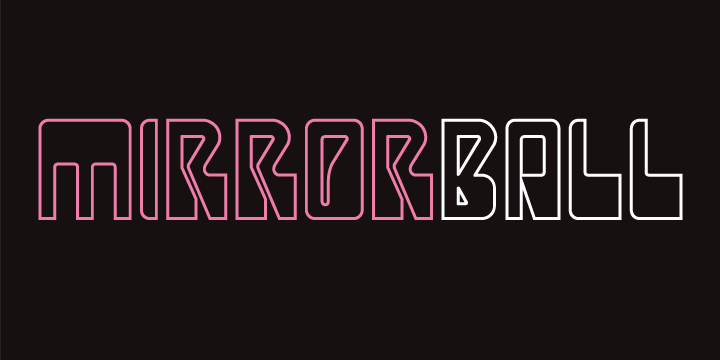
The LaserDisco Font is a dazzling and electrifying display typeface, characterized by its futuristic glow, segmented or neon-inspired forms, and an undeniable sense of 70s disco glam meets digital age. Imagine its vibrant characters dominating posters for retro-themed dance parties, adding an authentic, pulsating edge to vintage arcade game promotions, or creating captivating titles for documentaries about the disco era and early digital aesthetics. Its bold, often geometric construction and radiant feel also make it an excellent choice for dynamic music album covers, striking club flyers, nostalgic product packaging for tech gadgets, and social media graphics designed to stand out with an undeniable sparkle. Whether you're aiming for a high-energy, retro-futuristic look or a bold, celebratory vibe, LaserDisco Font delivers with its unmistakable personality, ensuring your visuals are both intriguing and truly memorable.
What makes LaserDisco Font so exciting is its profound ability to instantly transport viewers to a world of neon lights, pulsating beats, and groundbreaking digital aesthetics. In a visual landscape that thrives on unique impact, this font offers a refreshing dive into a vibrant era where technology and pop culture began to fuse. It’s more than just a typeface; it’s a thematic element that can instantly set a cool, retro-futuristic, and wonderfully energetic tone for a project, making content feel more engaging and unique. Designers will find it an invaluable asset for creating visuals that truly resonate with an audience seeking connection with music history, digital evolution, and timeless, glittering style.
The LaserDisco Font family is typically structured to offer a range of styles that amplify its glowing and retro-digital appeal. Beyond the primary LaserDisco Regular typeface, you might find companion styles such as a more impactful LaserDisco Bold for stronger emphasis, or perhaps LaserDisco Outline or LaserDisco Fill versions that can be layered to create multi-color neon effects. Given its distinct display nature, the focus is often on achieving a consistent glowing or segmented look across different sizes. These diverse family members provide designers with the flexibility to establish a clear typographic hierarchy and maintain a consistent, high-impact, and authentically retro-futuristic aesthetic across all elements of their project, from prominent headlines and logos to smaller, illustrative elements that demand a luminous touch.